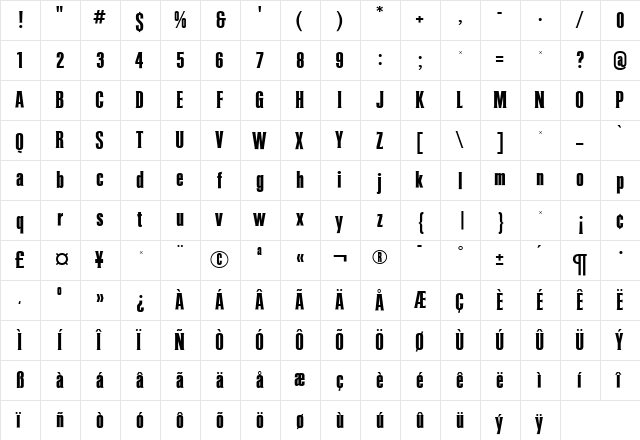
ColiseumRR Bold
Design Context for ColiseumRR Typeface
ColiseumRR takes a measured approach to typography — its balanced proportions and neutral character make it a reliable workhorse for both digital and print work. Its bold stroke weight gives it real presence on the page.